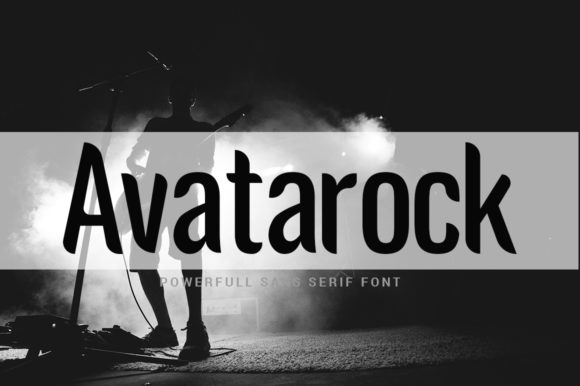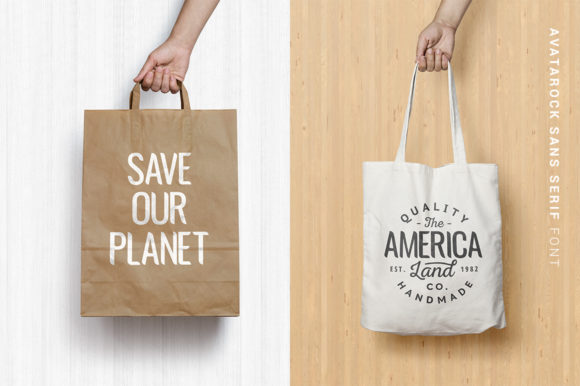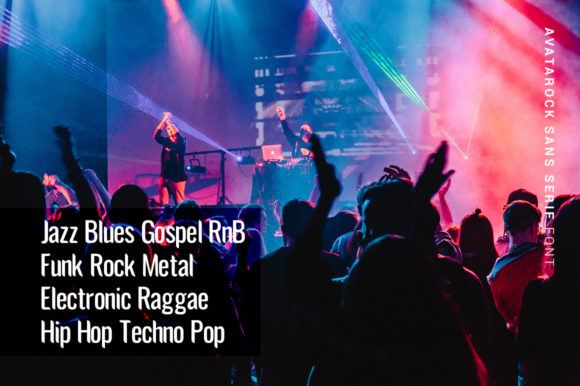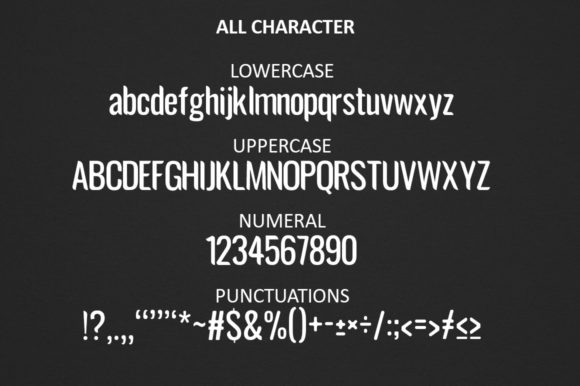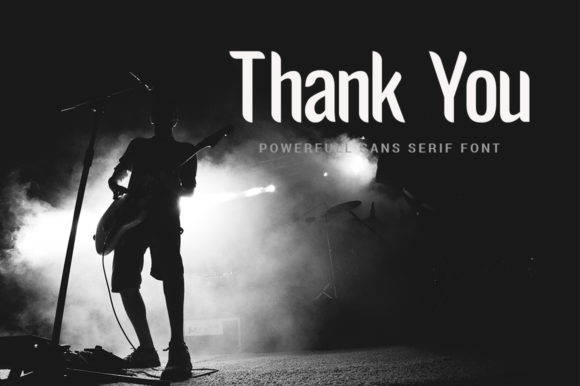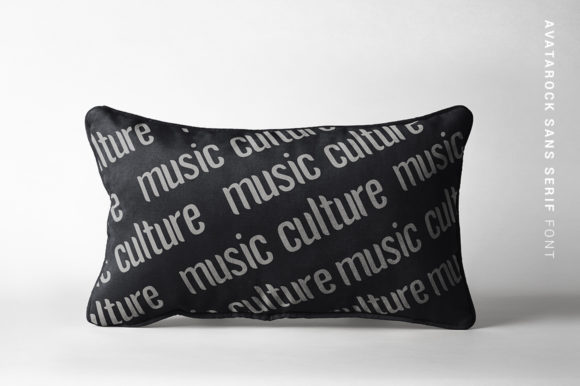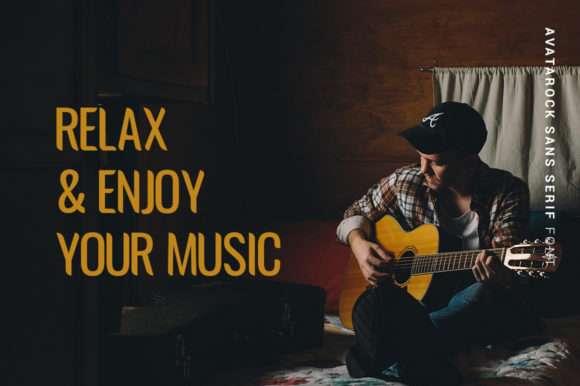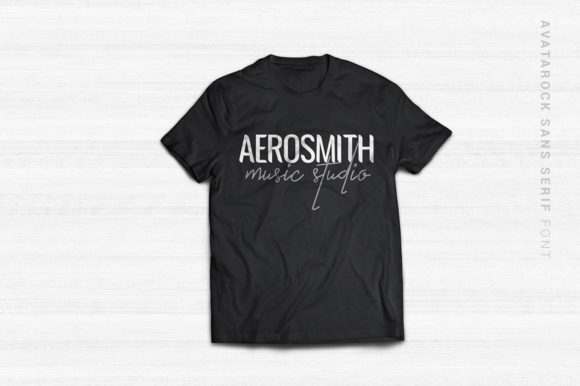
About Avatarock Font
The Avatarock is a powerful and beautiful condensed sans serif display font. It brings charming curves and satisfying patterns to modern condensed fonts. It’s born to be a blessing for designers and viewers alike!